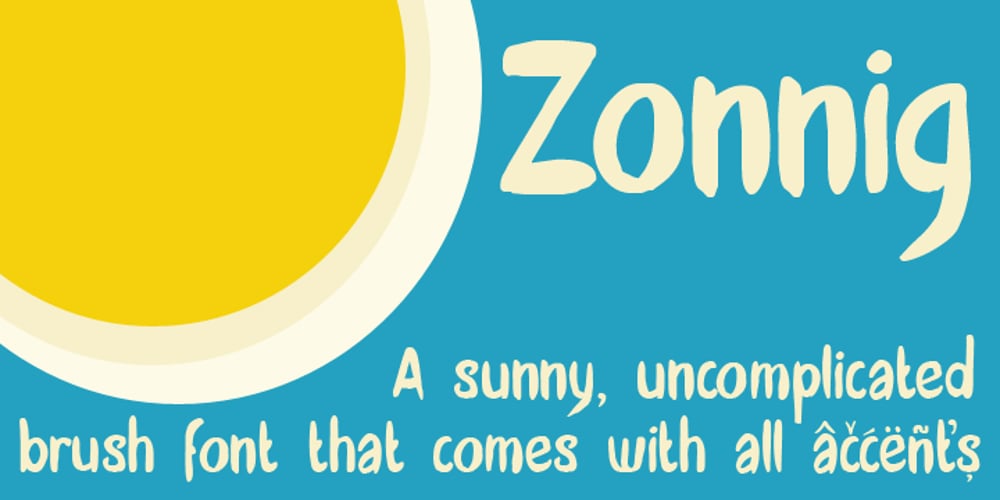
Zonnig
Zonnig font
Zonnig Font Family was designed by David Kerkhoff and published by Hanoded. Zonnig contains 1 styles and family package options. Zonnig means ‘Sunny’ in Dutch. Of course, this particular font has a rather sunny disposition; it looks good, it feels good and if it had a scent, it would smell good too! Use it for all your projects, as it comes with accents galore!